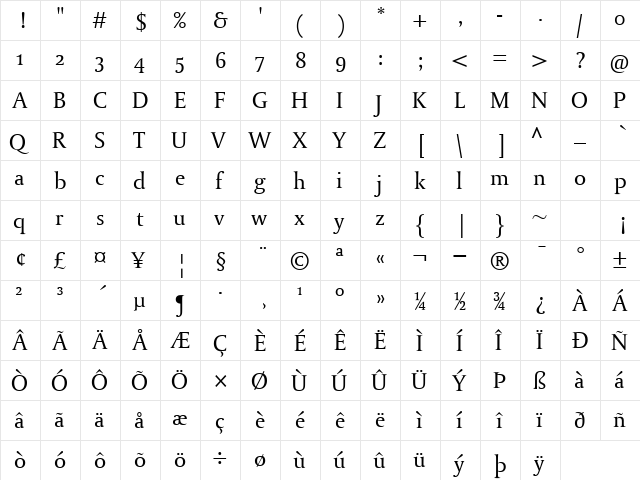
Paradox Dtl St Regular
Design Context for Paradox Dtl St Typeface
Paradox Dtl St takes a measured approach to typography — its balanced proportions and neutral character make it a reliable workhorse for both digital and print work.